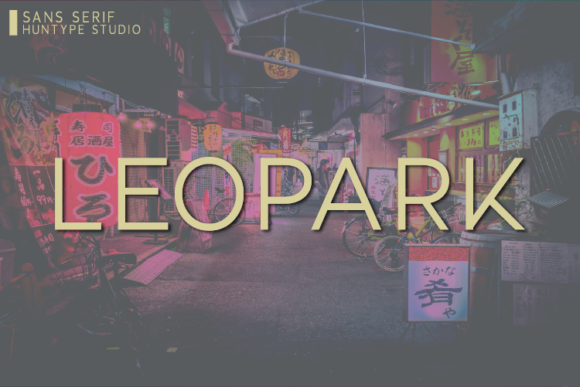
Calling all creative minds and design enthusiasts! Meet Leopark Font, the exquisite sans serif font that will captivate your audience with its understated elegance.
Picture this: the perfect font for your next stunning logo, an eye-catching brand identity, or a website that exudes sophistication. Leopark's thin, graceful letters dance upon the page, leaving an unforgettable impression on all who encounter it.
With its clean lines and airy feel, Leopark Font possesses an understated charm that complements any design aesthetic. Whether you're crafting sleek social media graphics, creating impactful marketing materials, or designing a website that commands attention, Leopark Font is your secret weapon.
But don't just take our word for it. Leopark Font has been hailed as the "Best Font For Quotes In Canva," a testament to its versatility and its ability to elevate your words to new heights.